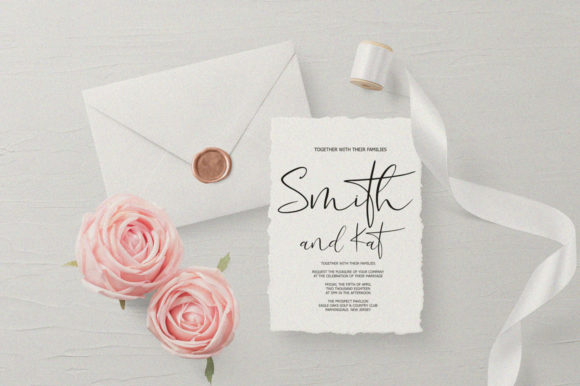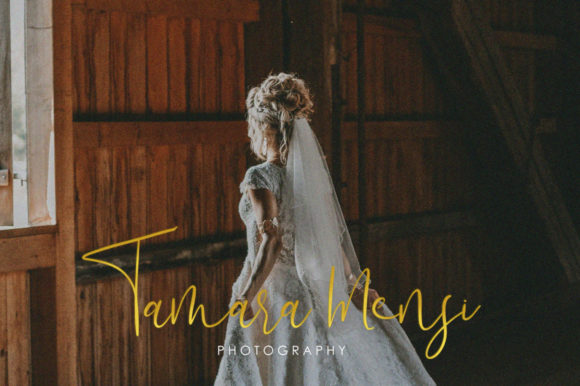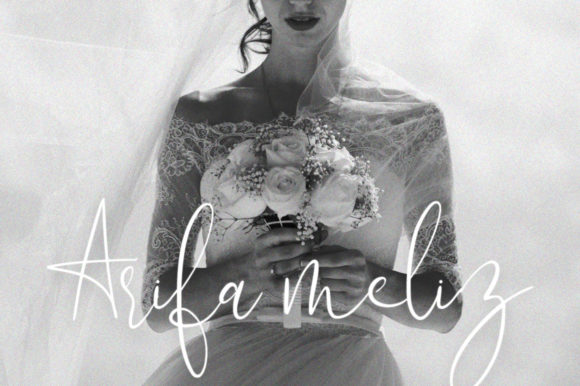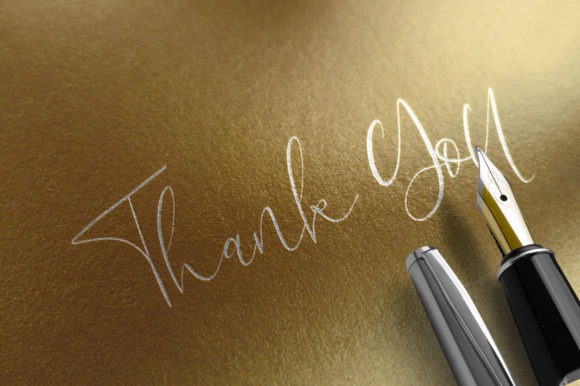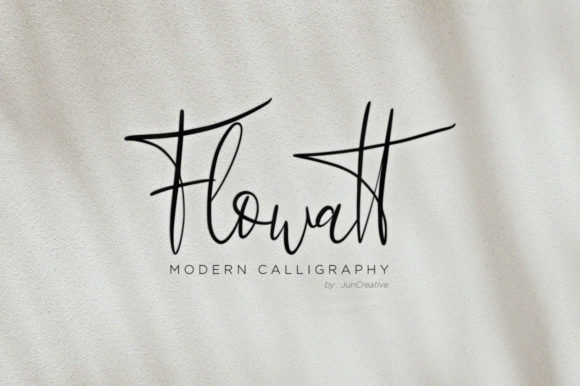
Introducing Flowatt Font: Elevate Your Design with Modern Calligraphy
Are you a designer or crafter looking for a font that adds a touch of modernity and elegance to your projects? Look no further than Flowatt Font, a stunning calligraphy font with a light feel that’s perfect for creating contemporary designs. In this article, we’ll dive into the world of Flowatt Font, exploring its features, benefits, and uses, as well as provide tips on how to make the most of this beautiful font.
What is Flowatt Font?
Flowatt Font is a modern calligraphy font designed to bring a fresh and sophisticated look to your design projects. With its light feel and fluid strokes, this font is ideal for creating a wide range of designs, from wedding invitations and branding materials to social media graphics and digital art. Whether you’re a professional designer or a crafty DIY enthusiast, Flowatt Font is sure to become a go-to choice in your font collection.
Key Features of Flowatt Font
- Modern Calligraphy Style: Flowatt Font boasts a modern calligraphy style that’s perfect for creating contemporary designs.
- Light Feel: The font’s light feel makes it easy to read and adds a touch of elegance to your designs.
- Fluid Strokes: The fluid strokes of Flowatt Font give it a natural, hand-written look that’s perfect for creating unique and personalized designs.
- Versatile: Flowatt Font can be used for a wide range of design projects, from digital art and social media graphics to branding materials and wedding invitations.
Benefits of Using Flowatt Font
So, why choose Flowatt Font for your design projects? Here are just a few benefits of using this amazing font:
- Adds a Touch of Elegance: Flowatt Font adds a touch of elegance and sophistication to any design project, making it perfect for creating high-end branding materials and wedding invitations.
- Easy to Read: The light feel and clear strokes of Flowatt Font make it easy to read, even at small sizes.
- Increases Creativity: With its unique and fluid strokes, Flowatt Font is sure to inspire your creativity and help you create unique and eye-catching designs.
- Perfect for Digital and Print Designs: Flowatt Font is optimized for both digital and print designs, making it a versatile choice for designers and crafters.
Tips for Using Flowatt Font
Here are a few tips for making the most of Flowatt Font:
- Pair with Bold Fonts: Pair Flowatt Font with bold fonts for a striking contrast that adds visual interest to your designs.
- Use for Headings and Titles: Use Flowatt Font for headings and titles to add a touch of elegance and sophistication to your designs.
- Pay Attention to Kerning: Pay attention to kerning and spacing to ensure that your text is easy to read and visually appealing.
Who Can Use Flowatt Font?
Flowatt Font is perfect for a wide range of designers and crafters, including:
- Graphic Designers: Graphic designers can use Flowatt Font to create stunning branding materials, social media graphics, and digital art.
- Wedding Planners and Stylists: Wedding planners and stylists can use Flowatt Font to create beautiful wedding invitations, stationery, and decor.
- Digital Artists: Digital artists can use Flowatt Font to add a touch of elegance and sophistication to their digital art.
- Crafters and DIY Enthusiasts: Crafters and DIY enthusiasts can use Flowatt Font to create personalized gifts, decorations, and other handmade items.
| Font Name | Flowatt Font |
| Author | Juncreative |
In conclusion, Flowatt Font is a stunning modern calligraphy font that’s perfect for designers and crafters looking to add a touch of elegance and sophistication to their projects. With its light feel, fluid strokes, and versatile design, Flowatt Font is sure to become a go-to choice in your font collection. Whether you’re creating branding materials, wedding invitations, or digital art, Flowatt Font is the perfect choice for adding a contemporary style to your designs.